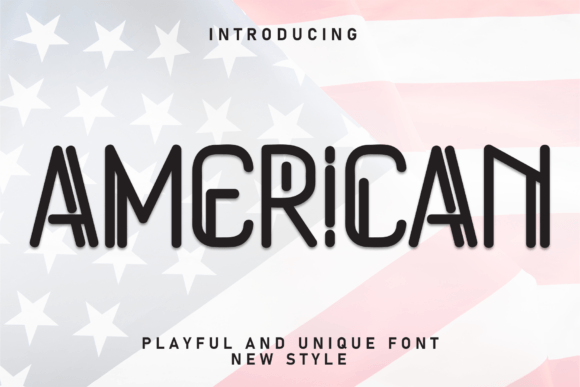
The Power of American Font: Elevate Your Designs with a Bold Statement
I’ll never forget the time I was working on a project for a client who needed a bold, eye-catching font to make their poster stand out. I scoured the internet, tried countless fonts, but nothing seemed quite right. That was until I stumbled upon the American font. Its unique design, featuring an extra line for each letter, instantly caught my attention. I knew right then and there that it was the perfect fit for the job. In this article, I’ll share with you why American font has become a staple in my design toolkit and how you can make the most of it in your own projects.
An Honest Review of American Font
• ✨ Unique Design: The extra line running through each letter adds a distinctive touch that makes the text pop.
• ✅ Versatility: Despite its bold nature, American font can be surprisingly versatile, suitable for various design projects from posters to digital media.
• 💡 Instant Impact: It’s designed to grab attention, making it perfect for headlines, titles, and any design element that needs to stand out.
While American font is incredibly useful, there are a few things to keep in mind:
• 🤔 Legibility at Small Sizes: Due to its design, the font may not be as legible at very small sizes. It’s best used for headlines or larger text.
• ⚠️ Overuse: Like any bold font, it can quickly become overwhelming if overused. Balance is key.
How to Use American Font: A Practical Guide
The Story Behind American Font
American font was designed with one goal in mind: to create a bold, attention-grabbing typeface that could serve as a statement piece in any design. Inspired by classic American typography and the desire to push the boundaries of traditional fonts, the designer aimed to craft a font that was both unique and versatile. While the specific origins might be shrouded in mystery, it’s clear that American font has struck a chord with designers looking for that extra punch in their work.